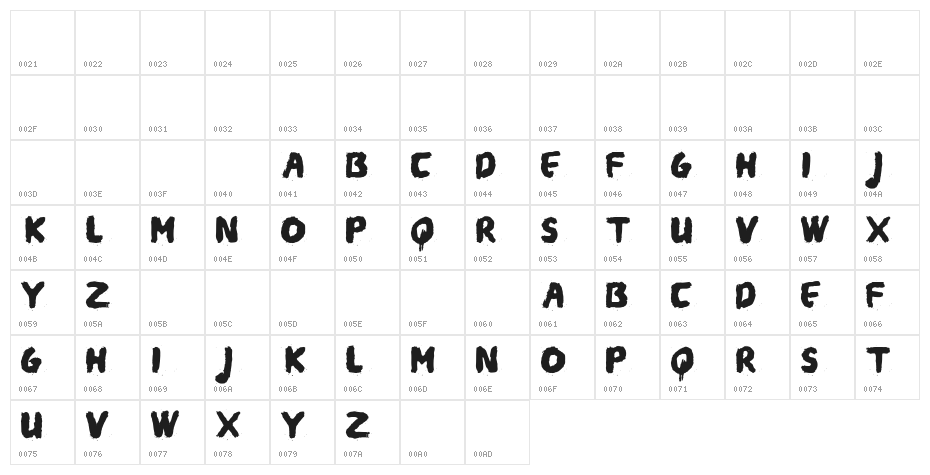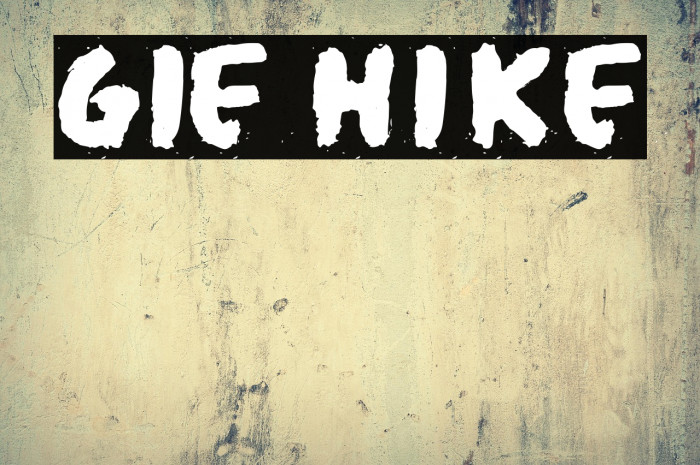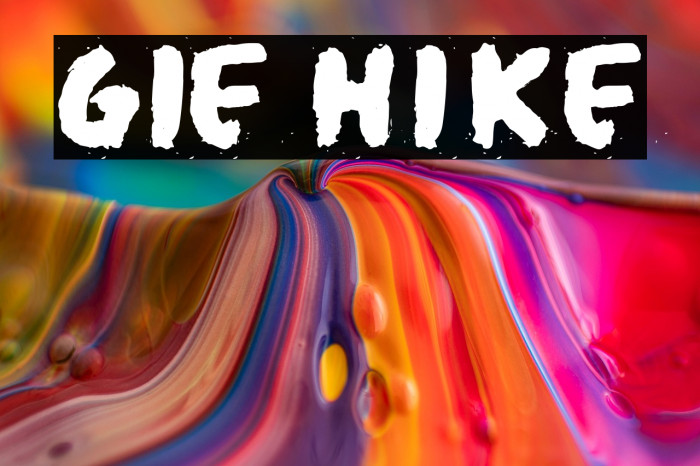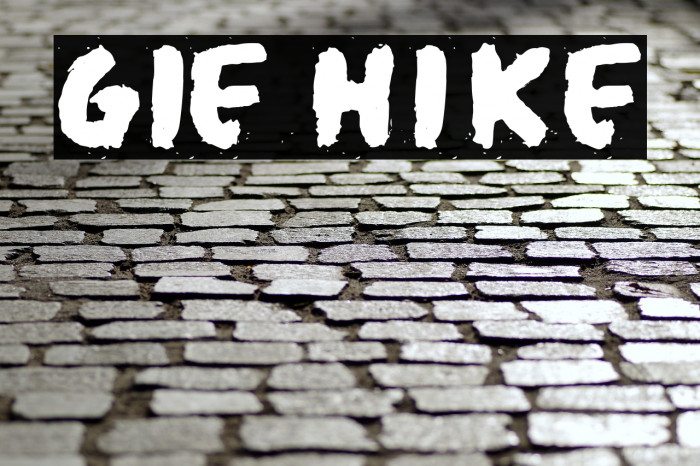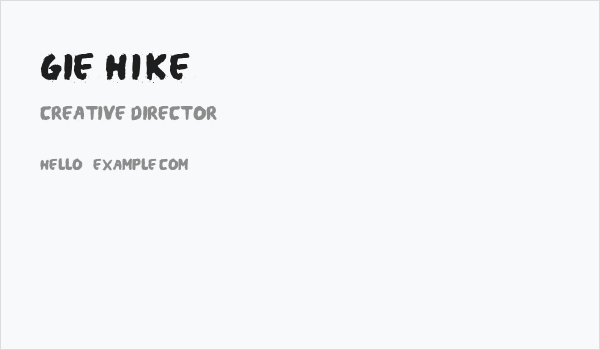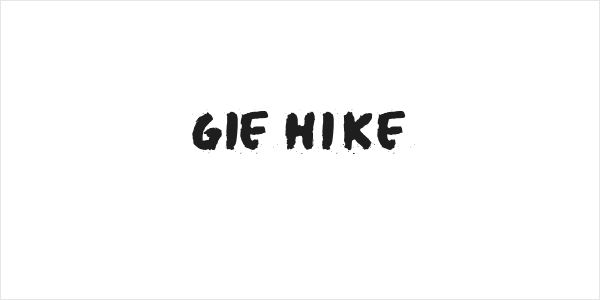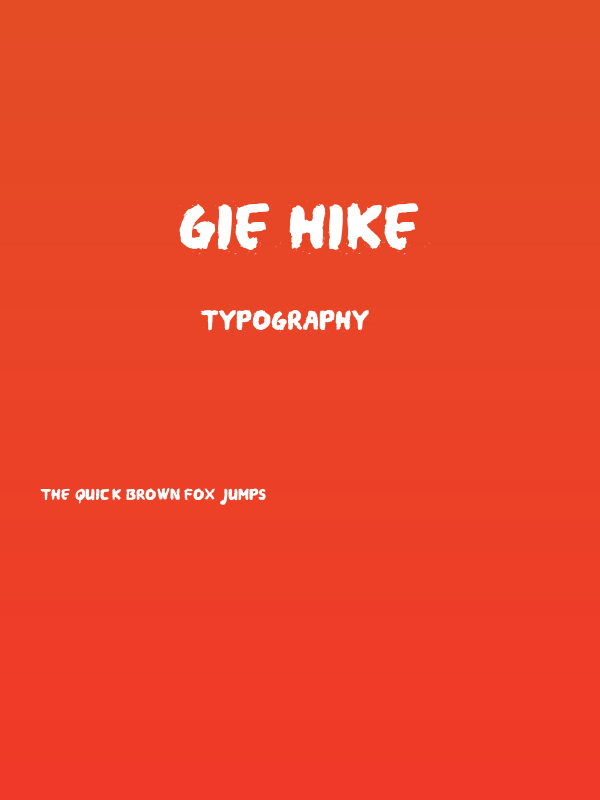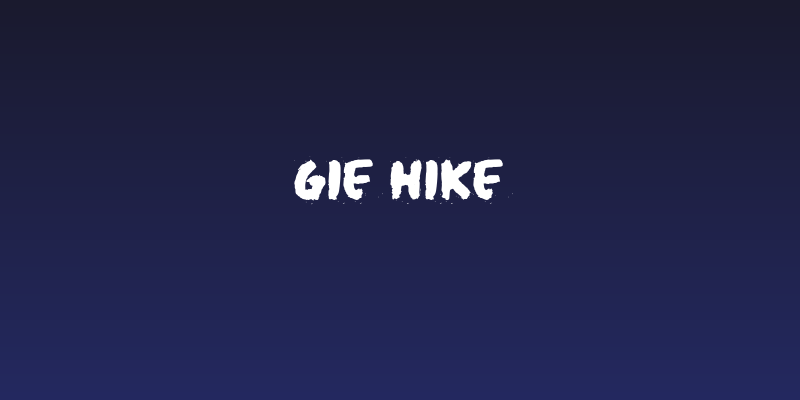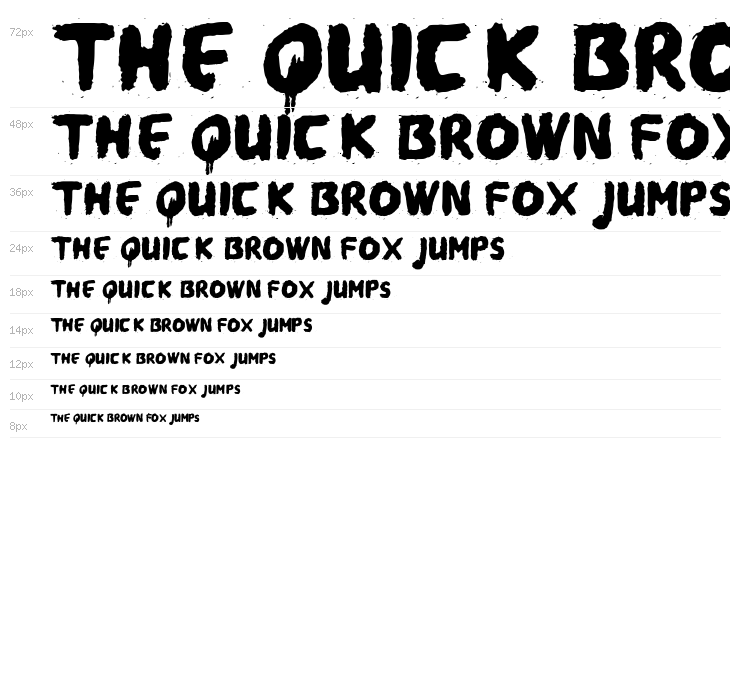
Gie Hike Font
Gie Hike Description
This font features a bold and expressive style with a hand-painted appearance. The characters are crafted with uneven edges and a slightly distressed texture, giving it a raw and artistic feel. The uppercase letters are prominent and sturdy, while the lowercase letters maintain a consistent style. The numbers and special characters follow the same design ethos, ensuring a cohesive look across all elements. This font is ideal for projects that require a strong visual impact and a touch of creativity.
| Overall Style | Artistic, Raw, Expressive |
| Use Case | Headlines, Posters, Branding |
| Proposed Projects | Perfect for artistic posters, album covers, branding for creative industries, and eye-catching headlines. |